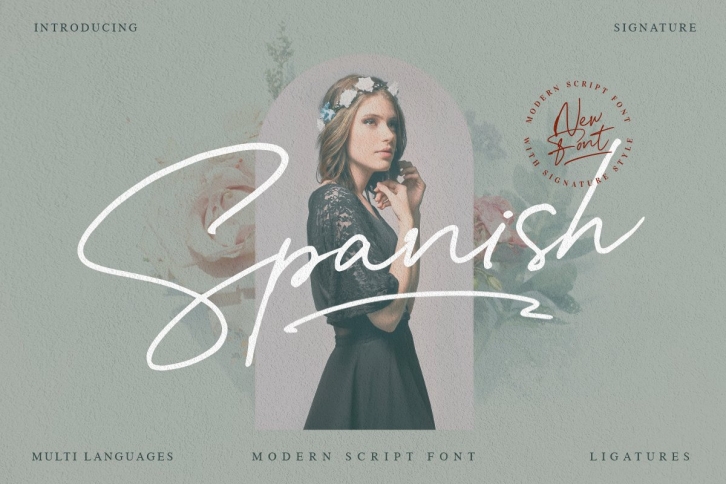
Introducing Spanish! It's a modern script font with a signature style look. It's highly recommended for you who want to make some designs with a natural signature style. Just open your Opentype features while using the script font to use the ligatures and swashes. As you type, your text will look like a natural signature or handwriting. So, enjoy the Spanish modern script and make some cool stuff!